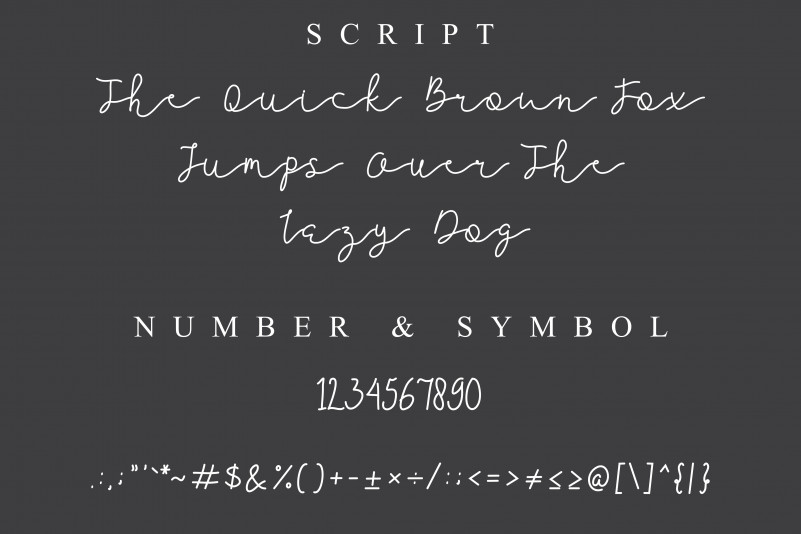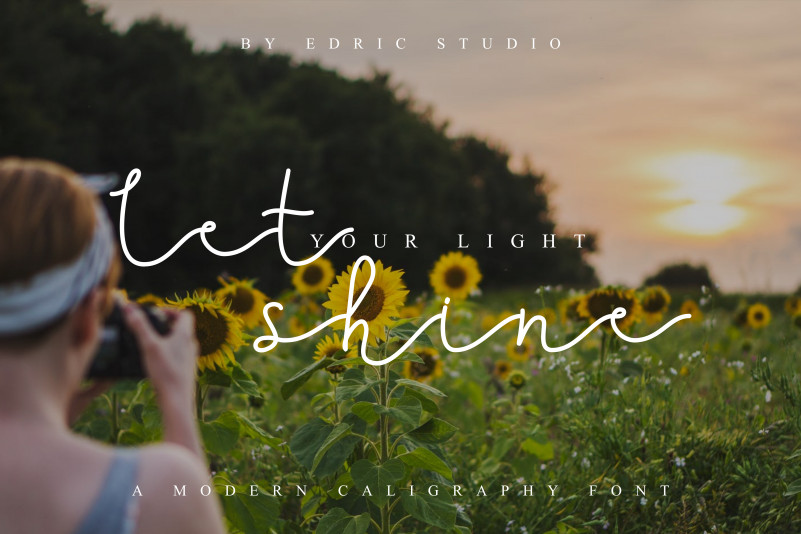
Jellita Handwritten Font
What’s up guys Please meet our newest font : Jellita Handwritten Font This is a new beautiful handwriting script font with pen look one line handcrafted glyphs .